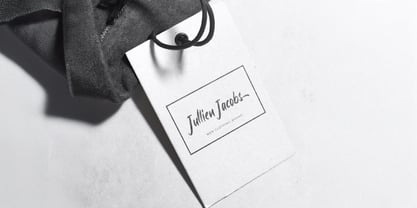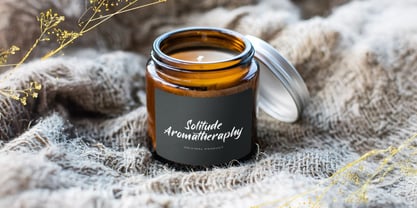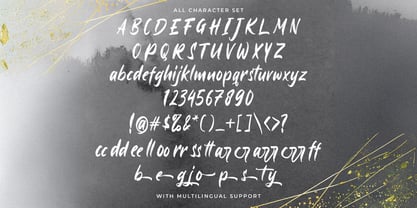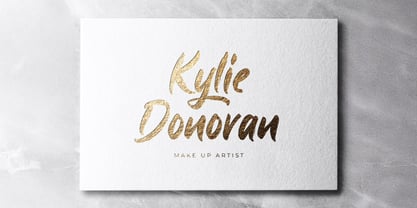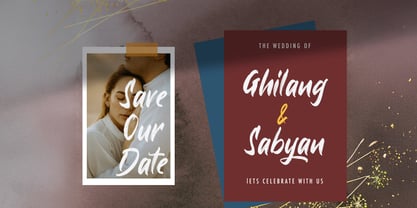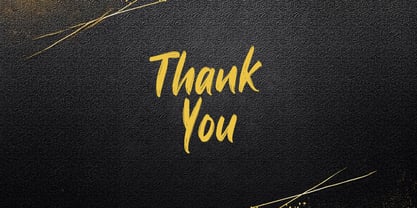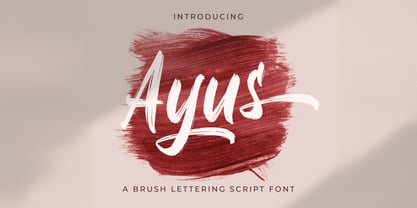
Die Schriftfamilie Ayus wurde von Virgiawan Listanto entworfen und von Stringlabs Creative Studio veröffentlicht. Ayus enthält 1 Stile.
Ayus is a dynamic handbrush script font that bursts with energy and attitude. With bold strokes, rough textures, and a natural brush style, Ayus brings a raw, handcrafted feel to your designs perfect for making bold, expressive statements. Ideal for logos, apparel, posters, and creative branding, Ayus gives your work an authentic, street-inspired edge.
Ayus